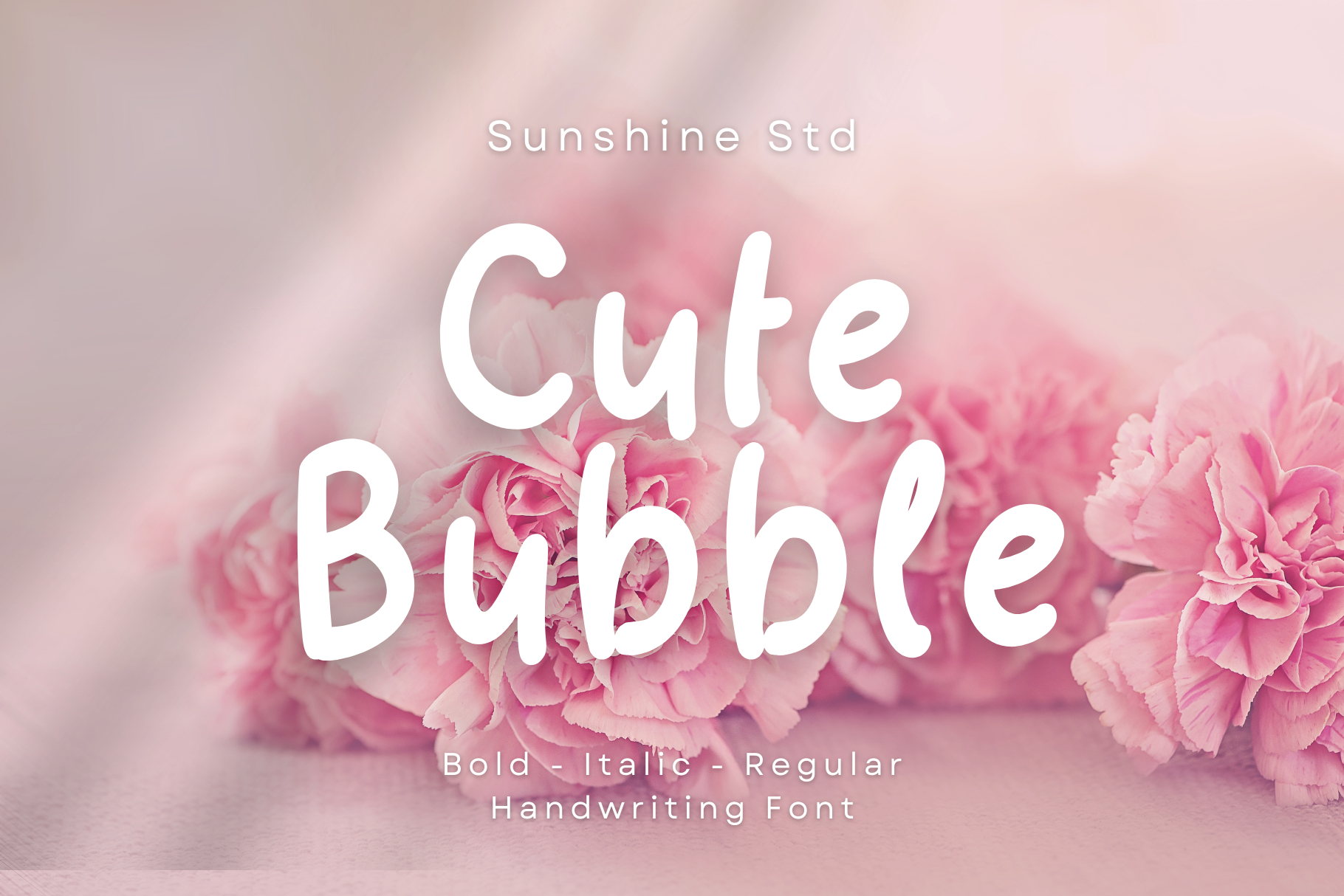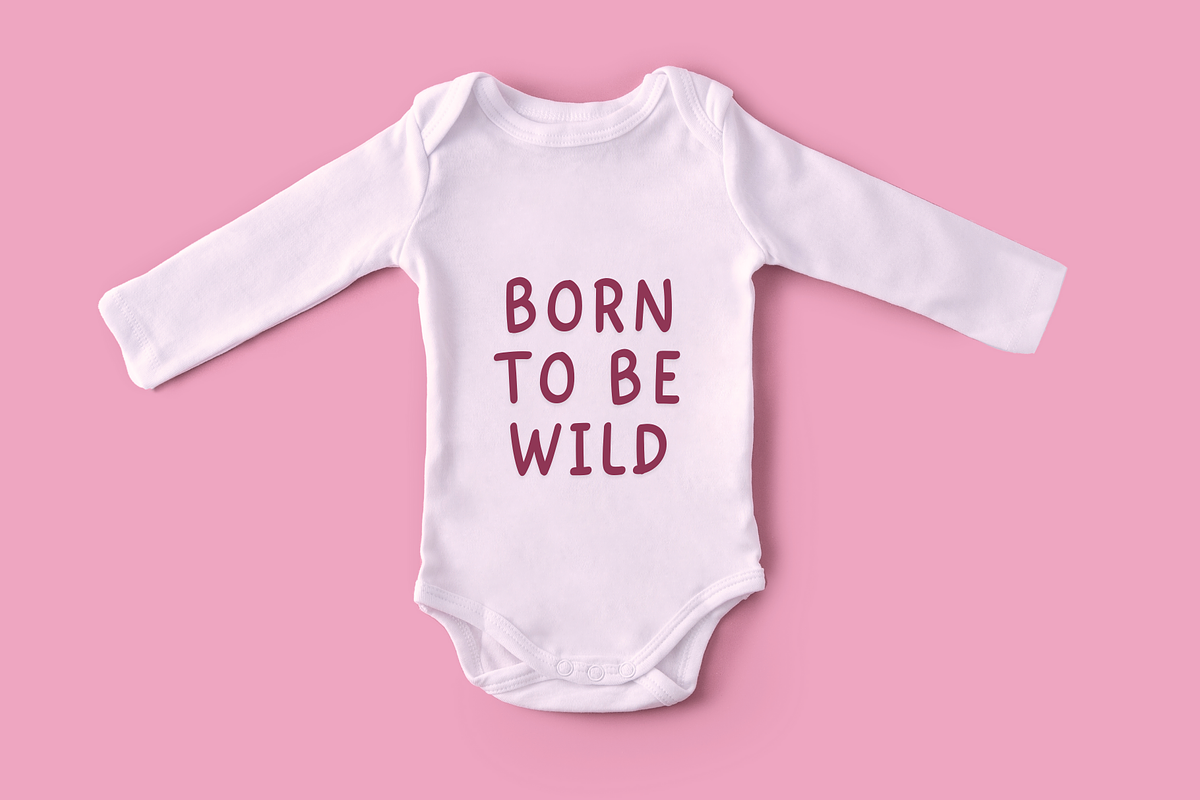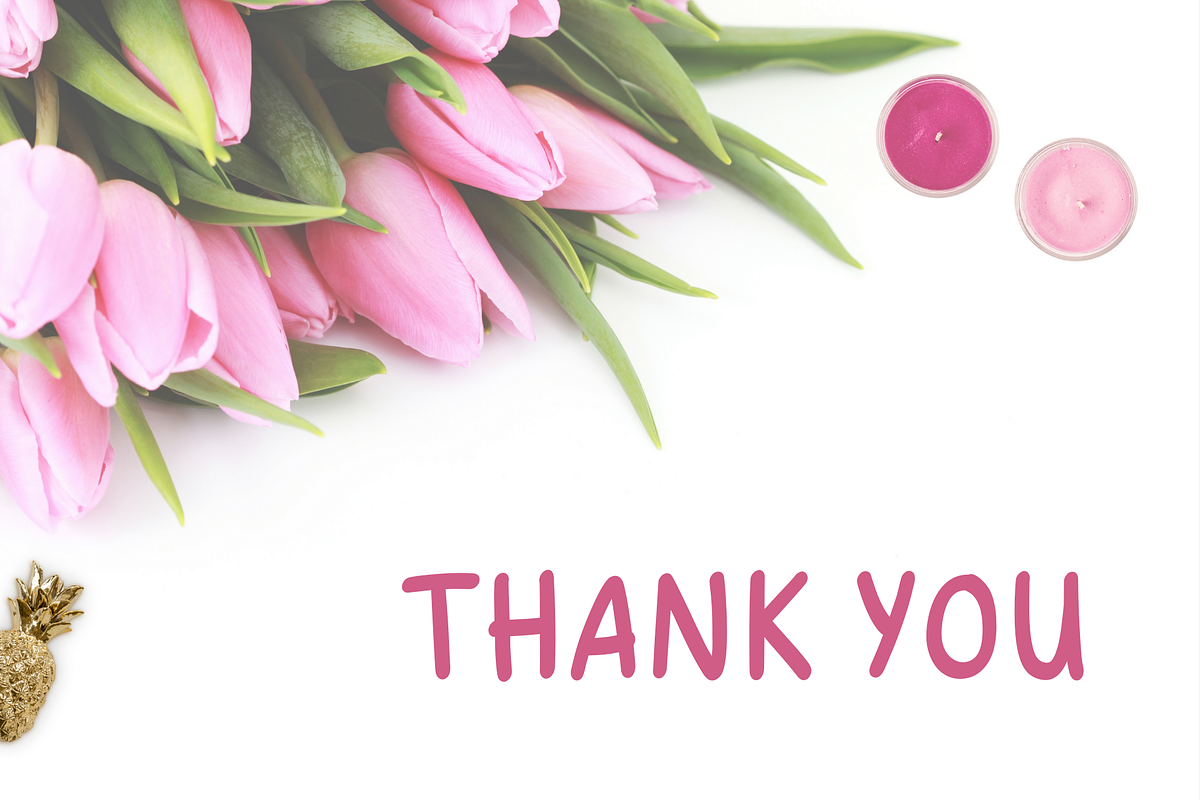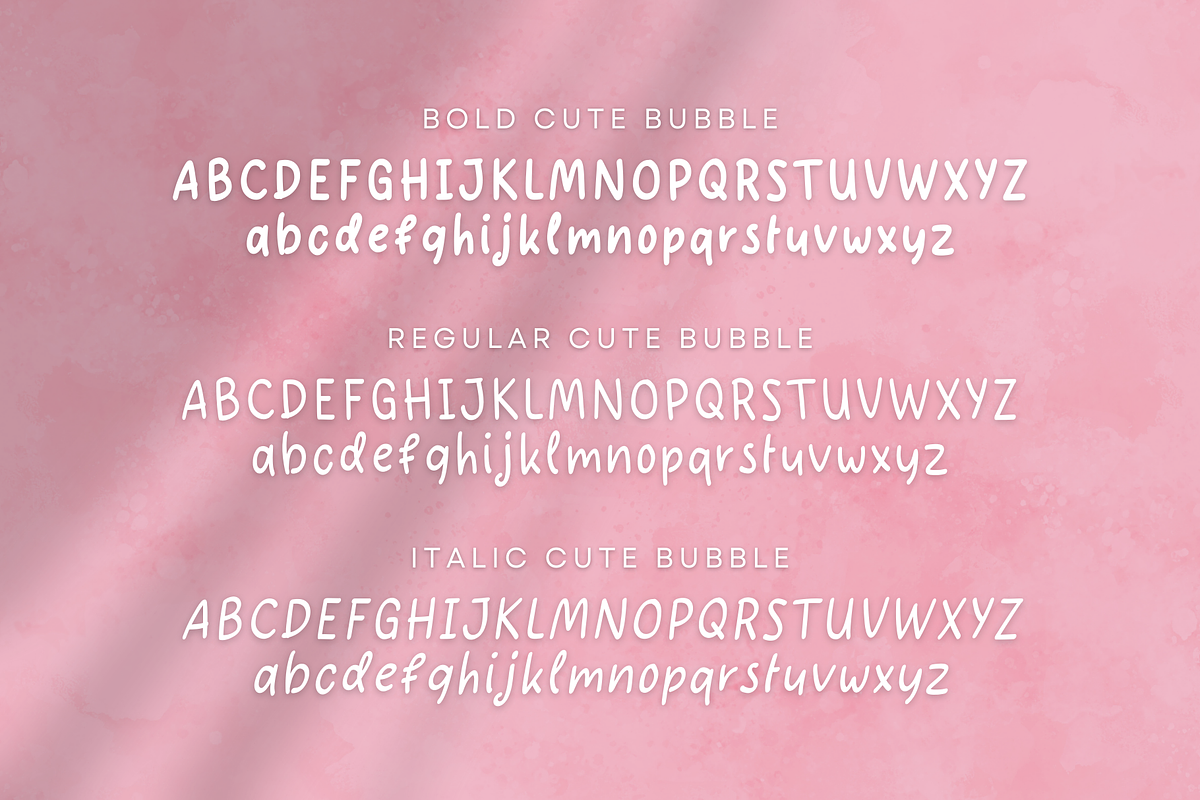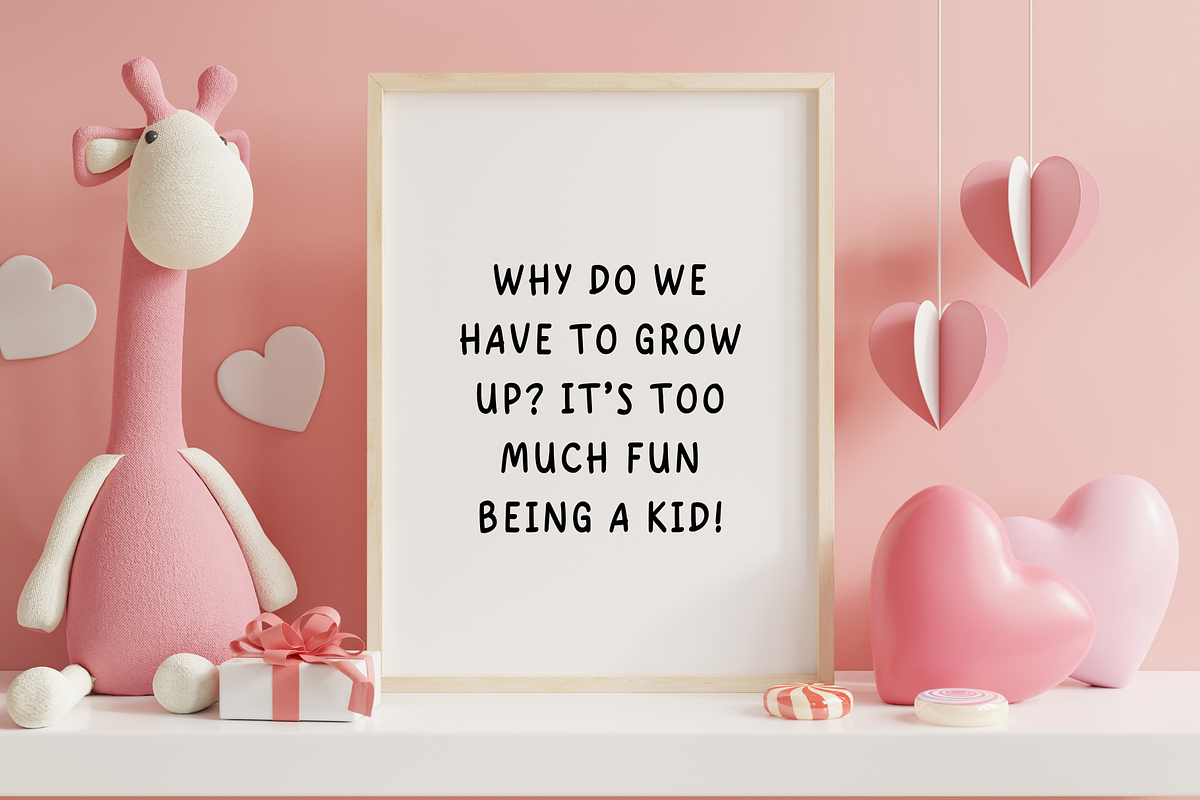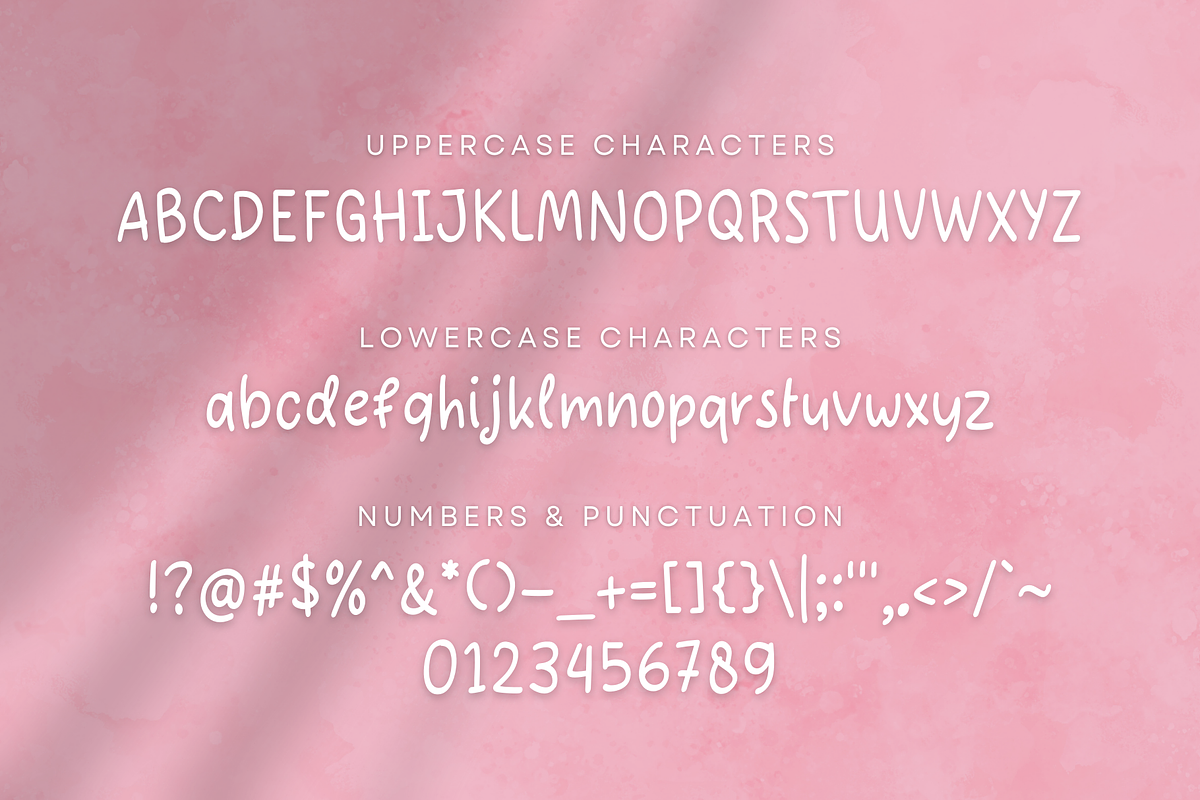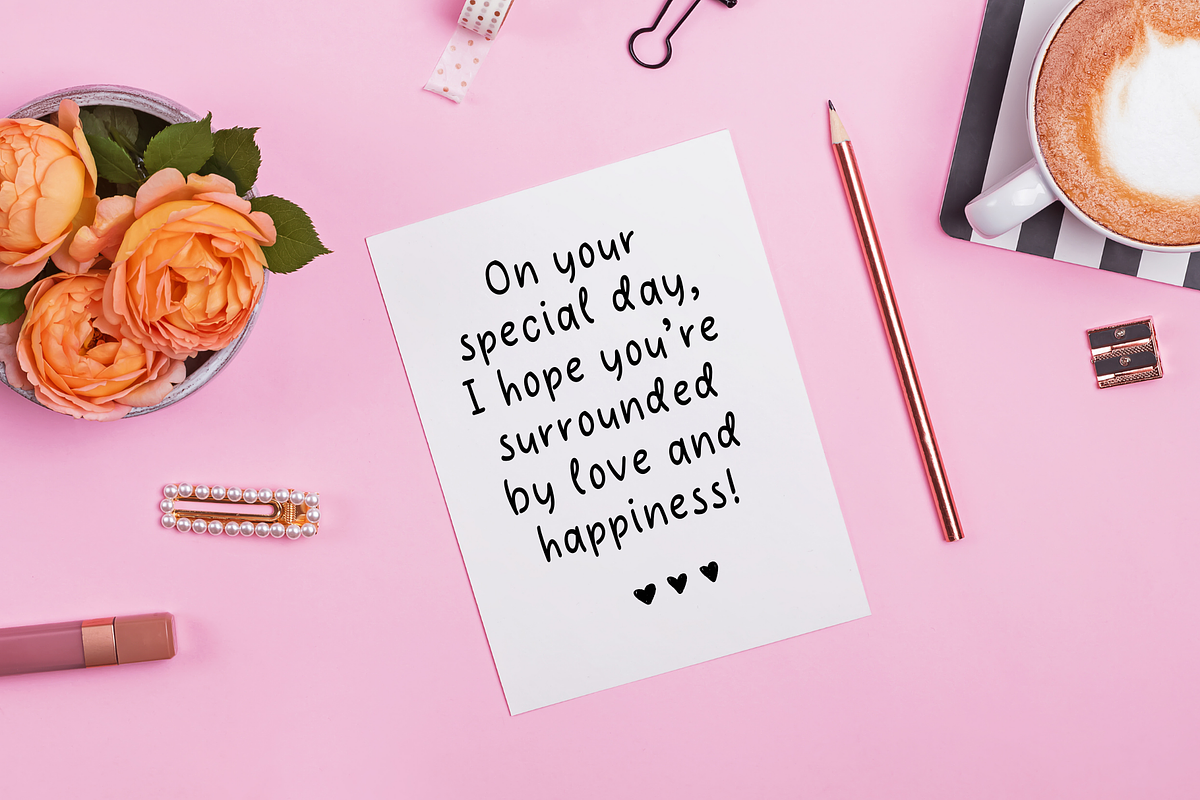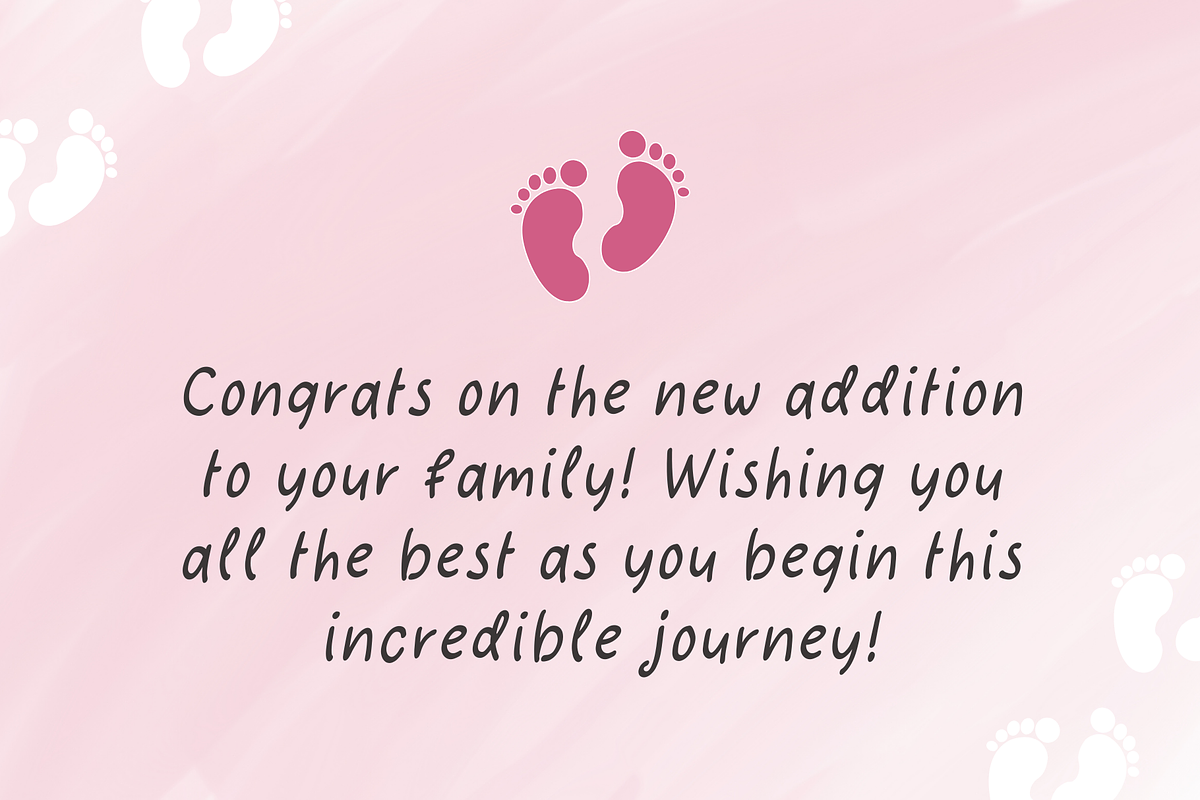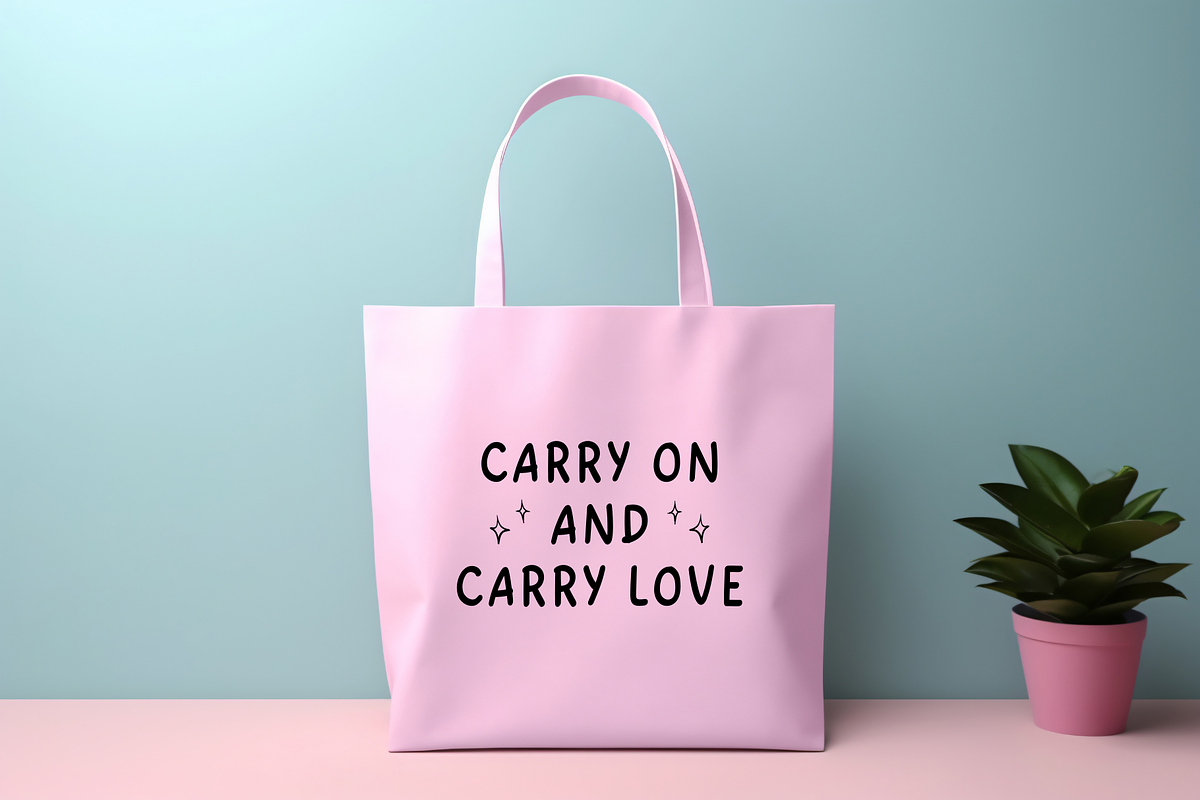
Cute Bubble Handwriting Font
About the Product Meet Cute Bubble, the delightful handwriting font that brings a playful and bubbly vibe to your designs! With its round, cheerful letters and whimsical charm, Cute Bubble is perfect for creatives looking to add a fun and lighthearted touch to their projects.
About the Features
- Standart alphabet (lowercase, uppercase and number)